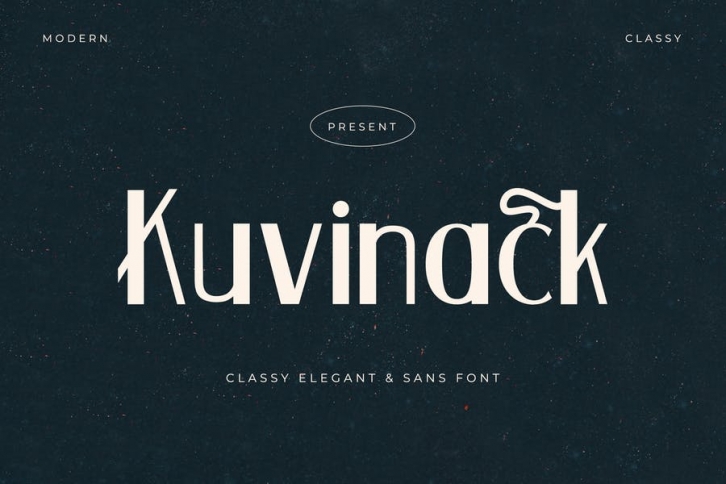
Kuvinack is an elegant and modern sans serif font.
No matter the topic, this font will be an incredible asset to your fonts library, as it has the potential to elevate any creation.